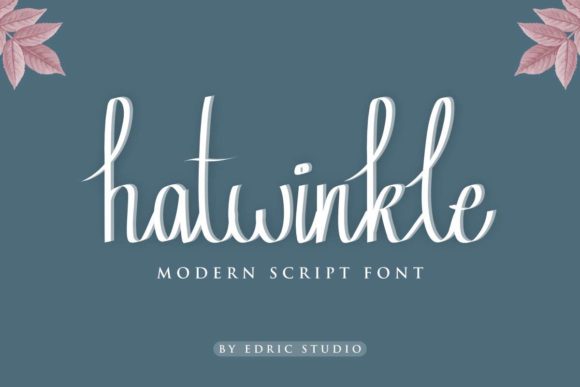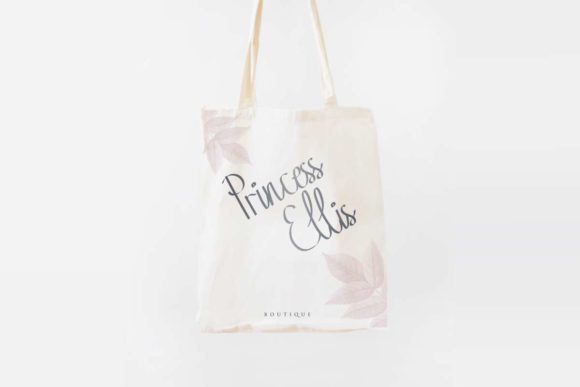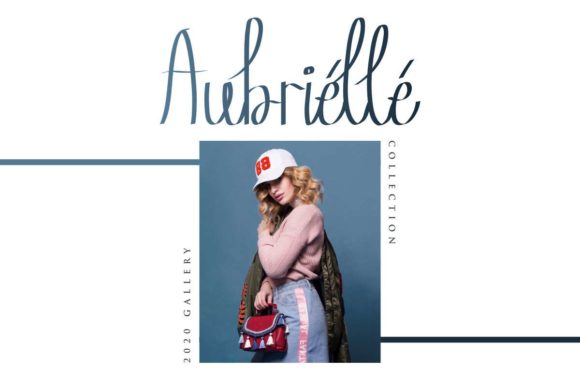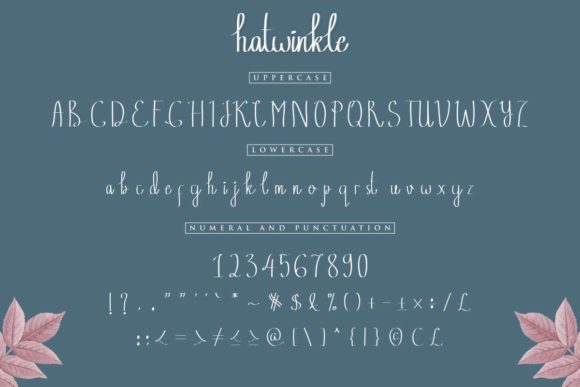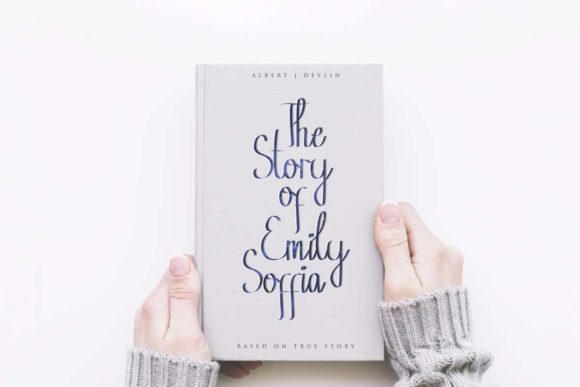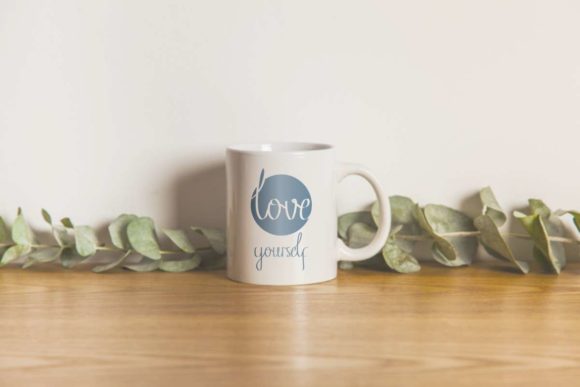
Introducing Hatwinkle Font: The Perfect Handwritten Companion for Designers and Crafters
In the world of typography, few fonts manage to capture the essence of whimsy and charm as effortlessly as Hatwinkle. This delightful handwritten font has been meticulously crafted to win the hearts of designers, crafters, and anyone looking for that perfect, down-to-earth touch in their projects. With its casual elegance and remarkable versatility, Hatwinkle is poised to become your go-to font for a wide array of creative endeavors.
Handwritten fonts have a unique way of adding a personal touch to any design. They bring a level of warmth and authenticity that can be hard to replicate with more formal, machine-generated fonts. Among these, Hatwinkle stands out for its exceptional craftsmanship and attention to detail. Each letter has been carefully handcrafted to ensure that the font not only looks great but is also highly readable, making it perfect for both digital and print applications.
What Makes Hatwinkle Special?
- Cute and Inviting: Hatwinkle’s design is centered around being cute and inviting. Its charm lies in its casual, almost whimsical feel, which makes it instantly likable and engaging.
- Versatility at Its Best: One of the standout features of Hatwinkle is its incredible versatility. Whether you’re working on letterheads, titles, stationery, or any other project, this font adapts beautifully, ensuring your designs always look cohesive and well-thought-out.
- Readability: In a world where readability is key, Hatwinkle shines. Its clear and well-defined letters ensure that your message is conveyed effectively, without compromising on style.
- Crafty Ideas and Beyond: Hatwinkle is more than just a font; it’s a creative companion. It’s perfect for a wide range of crafty ideas, from DIY project descriptions to handmade product labels, and everything in between.
Using Hatwinkle in Your Projects
The possibilities with Hatwinkle are endless. Here are a few ideas to get you started:
- Letterheads and Stationery: Add a personal touch to your professional correspondence with Hatwinkle. It’s perfect for creating custom letterheads, invoices, or thank you cards.
- Digital and Print Media: Whether you’re designing a blog, an eBook, or a brochure, Hatwinkle can add that extra layer of charm and personality to your content.
- Social Media Graphics: Stand out on social media with Hatwinkle. Use it for quotes, announcements, or any graphic that could use a friendly, approachable vibe.
- Crafting and DIY Projects: If you’re into crafting or DIY projects, Hatwinkle can be used for labels, instructions, or any textual element in your project.
Why Designers and Crafters Love Hatwinkle
Designers appreciate Hatwinkle for its unique character and flexibility. It can be used in a variety of design contexts, from branding and advertising to web design and publishing. Crafters love it for its warmth and personality, which can add a human touch to their handmade products and project documentation.
Hatwinkle is more than just a font; it’s a tool for creativity and self-expression. Its cute, handwritten charm and incredible versatility make it an excellent choice for designers, crafters, and anyone looking to add a personal touch to their projects. With Hatwinkle, you’re not just choosing a font; you’re choosing a way to connect with your audience, to make your designs more engaging, and to bring a little bit of whimsy into your work. So, why settle for ordinary when you can make your designs truly special with Hatwinkle?
Embrace the charm and versatility of Hatwinkle Font in your next project. Whether you’re a seasoned designer or a DIY enthusiast, Hatwinkle is sure to become your new favorite companion in the world of creativity.